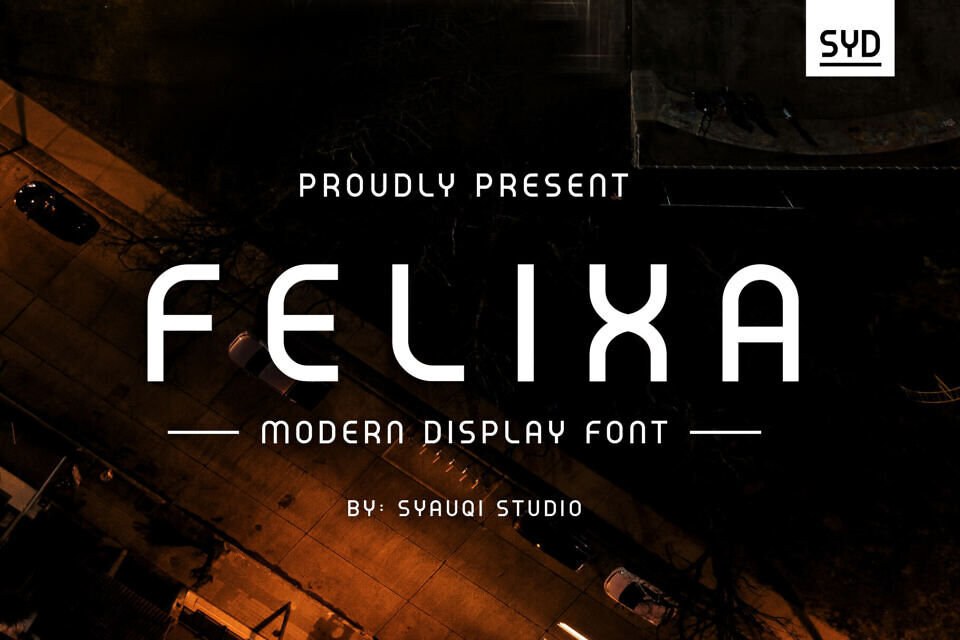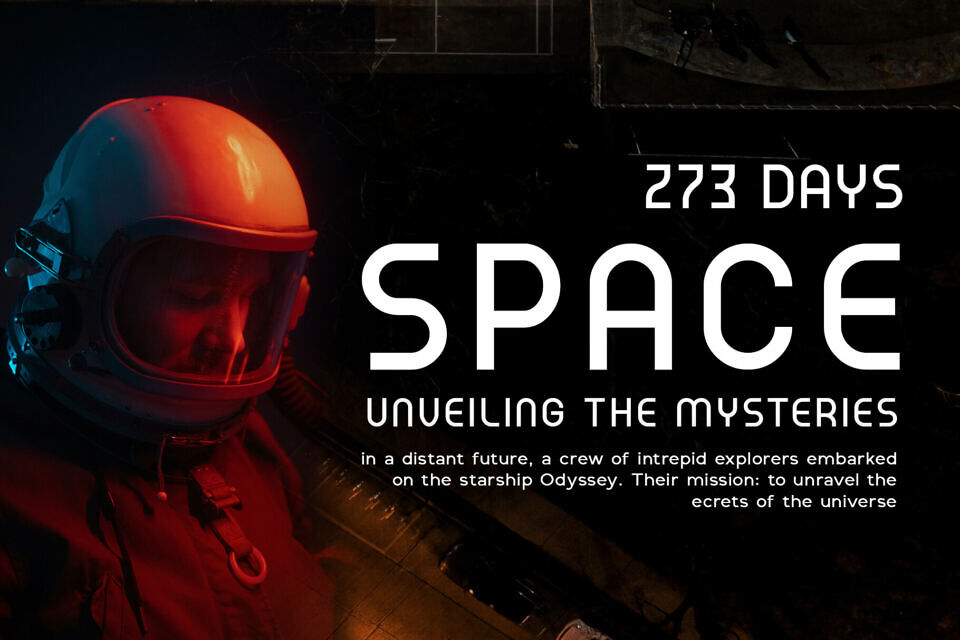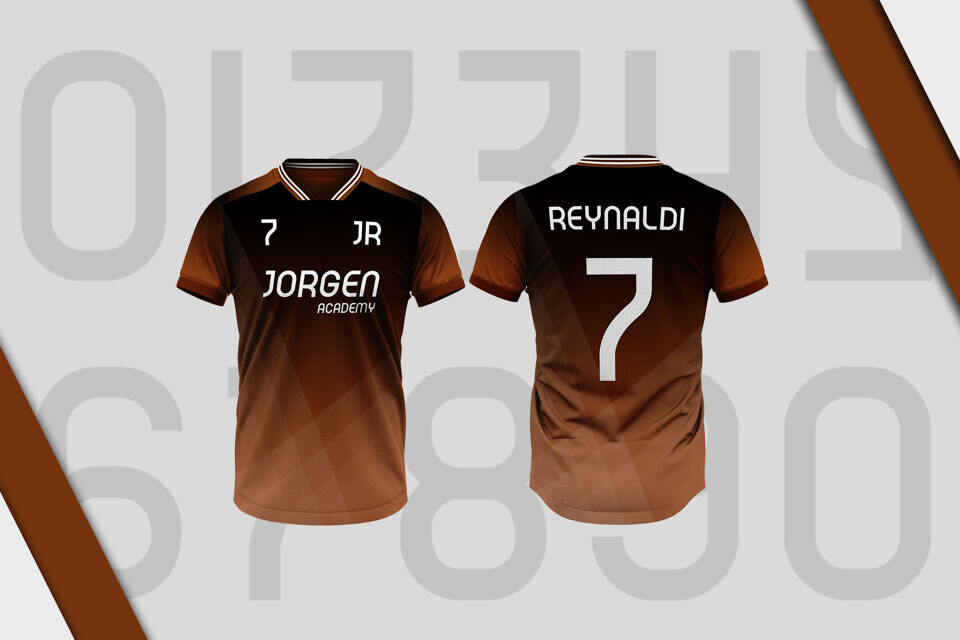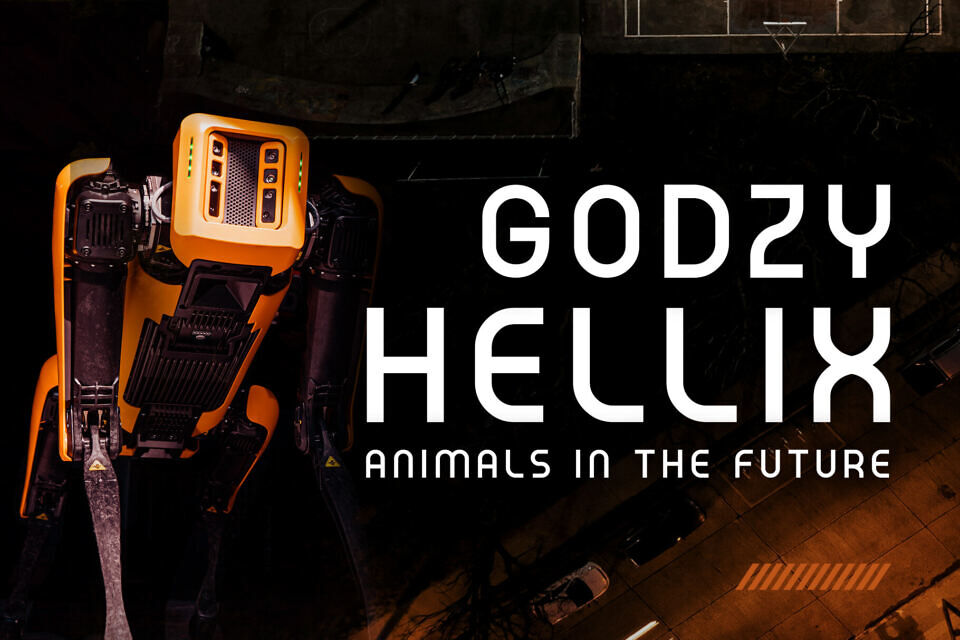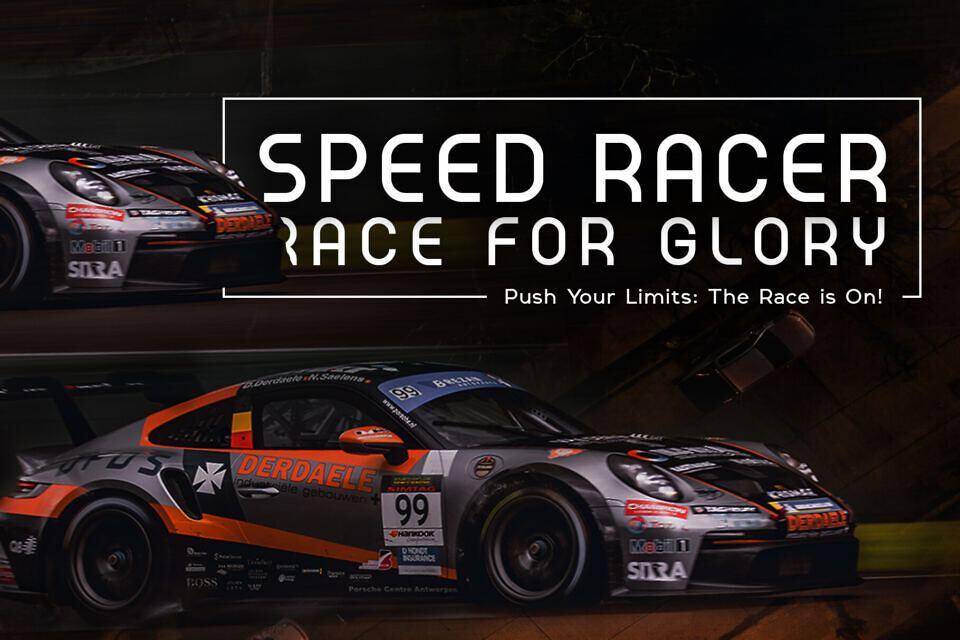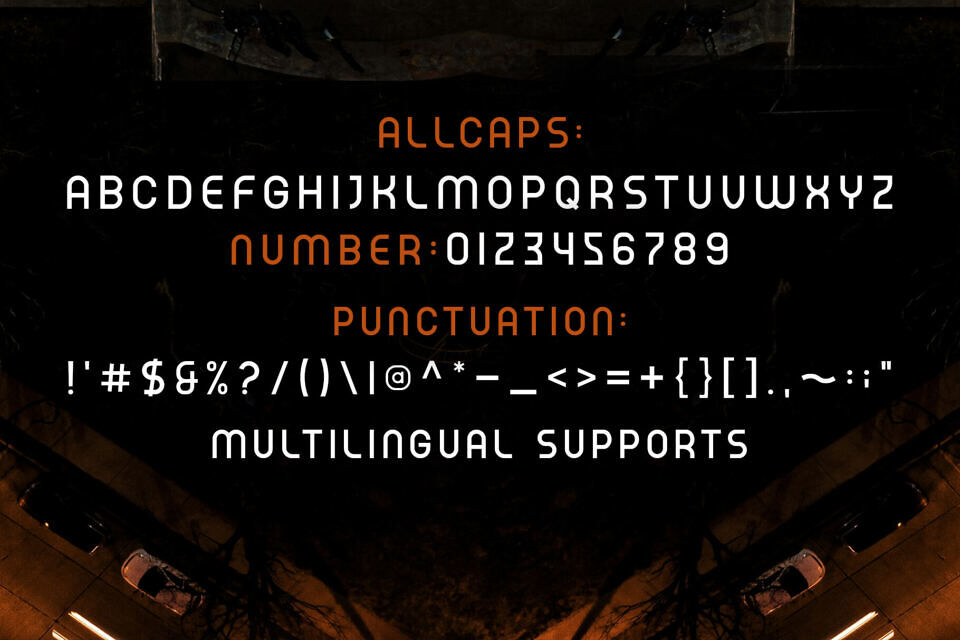
Felixa Font
Introducing Felixa, a Modern Display Font meticulously crafted to embody the essence of modernity and innovation. With its sleek, cutting-edge design, this font is ready to transform your creative projects, infusing them with a bold, forward-thinking aesthetic.
At its core, Felixa captures the spirit of the future, reflecting the precision and sophistication of contemporary design. Its clean lines and geometric forms make it an ideal choice for a variety of graphic applications, ensuring versatility across multiple platforms and mediums.